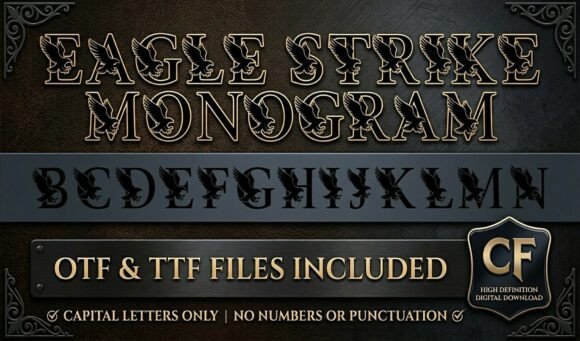
Eagle Strike Monogram Font: Elevate Your Designs with Majestic Elegance
Are you looking for a font that can add a touch of sophistication and power to your designs? Look no further than the Eagle Strike Monogram Font! This unique and high-impact font combines a classic serif alphabet with a detailed silhouette of a swooping eagle, creating a bold and majestic look that’s perfect for a variety of design projects.
What is the Eagle Strike Monogram Font?
The Eagle Strike Monogram Font is a specially designed font that features a classic serif alphabet beautifully combined with a detailed silhouette of a swooping eagle. This font is perfect for creating bold, majestic, and eye-catching designs that require a touch of elegance and sophistication. With the Eagle Strike Monogram Font, you can create stunning designs that will leave a lasting impression on your audience.
Features of the Eagle Strike Monogram Font
The Eagle Strike Monogram Font has several features that make it an ideal choice for designers and crafters. Some of its key features include:
- Classic Serif Alphabet: The font features a classic serif alphabet that provides a touch of sophistication and elegance to your designs.
- Detailed Eagle Silhouette: The font includes a detailed silhouette of a swooping eagle that adds a touch of power and majesty to your designs.
- Easy to Use: The font is easy to use and requires no special design skills. Simply type out your letter, and the eagle silhouette is already built right in!
- High-Impact: The font is high-impact and perfect for creating bold and eye-catching designs that require a touch of drama and elegance.
Use Cases for the Eagle Strike Monogram Font
The Eagle Strike Monogram Font is perfect for a variety of design projects, including:
- Father’s Day Gifts: Create stunning Father’s Day gifts, such as personalized mugs, t-shirts, and cards, with the Eagle Strike Monogram Font.
- Sports Team Logos: Design bold and majestic sports team logos that will intimidate your opponents and inspire your team.
- Patriotic 4th of July Apparel: Create eye-catching patriotic 4th of July apparel, such as t-shirts and hats, with the Eagle Strike Monogram Font.
- Custom Monogrammed Signs: Design custom monogrammed signs for outdoor enthusiasts, such as campers and hikers, with the Eagle Strike Monogram Font.
Benefits of Using the Eagle Strike Monogram Font
The Eagle Strike Monogram Font offers several benefits to designers and crafters, including:
- Unique and Eye-Catching Designs: The font helps you create unique and eye-catching designs that will stand out from the crowd.
- Time-Saving: The font saves you time and effort by providing a pre-designed eagle silhouette that you can use in your designs.
- Elegance and Sophistication: The font adds a touch of elegance and sophistication to your designs, making them perfect for a variety of applications.
Tips for Using the Eagle Strike Monogram Font
Here are some tips for using the Eagle Strike Monogram Font:
- Experiment with Different Colors: Experiment with different colors and color combinations to find the perfect look for your design.
- Use it for Headings and Titles: Use the Eagle Strike Monogram Font for headings and titles to add a touch of elegance and sophistication to your designs.
- Combine with Other Fonts: Combine the Eagle Strike Monogram Font with other fonts to create a unique and eye-catching look.
The Eagle Strike Monogram Font is a powerful and elegant font that can elevate your designs to new heights. With its classic serif alphabet and detailed eagle silhouette, this font is perfect for creating bold, majestic, and eye-catching designs. Whether you’re a designer or crafter, the Eagle Strike Monogram Font is an ideal choice for a variety of design projects. So why wait? Download the Eagle Strike Monogram Font today and make your designs soar!